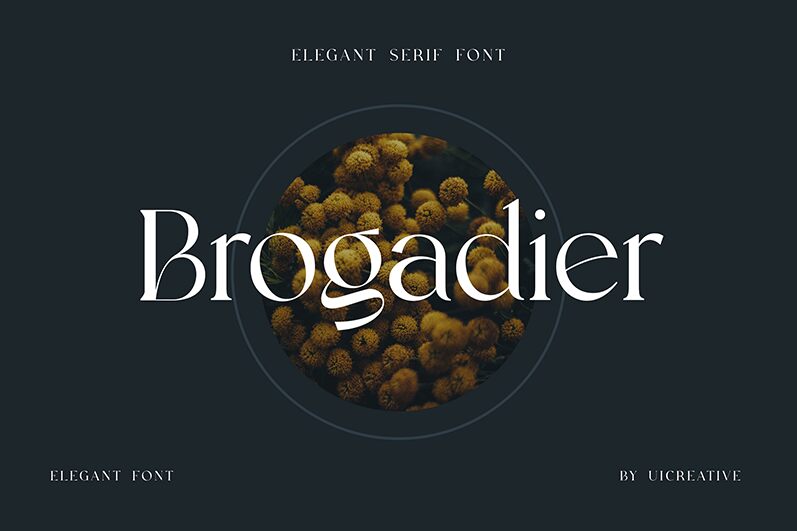
Brogadier
Brogadier, a captivating serif font crafted by UI Creative, exudes a timeless elegance with its refined, sophisticated strokes. This typeface's distinctive character lies in its harmonious blend of traditional forms and modern refinement, creating a visually striking and compelling aesthetic. The font's precise letterforms and delicate serifs evoke a sense of grandeur and sophistication, making it an ideal choice for projects that demand a touch of elegance and distinction.
Brogadier's versatility allows it to seamlessly adapt to diverse design contexts, from high-end editorial layouts to impactful branding and marketing materials. Its strong presence and legibility make it a suitable choice for headlines, titles, and other prominent typographic elements, while its refined qualities lend themselves well to body text and longer-form content. Whether you're curating a luxury brand identity or crafting a captivating editorial experience, Brogadier's timeless elegance and visual appeal can elevate your designs to new heights.